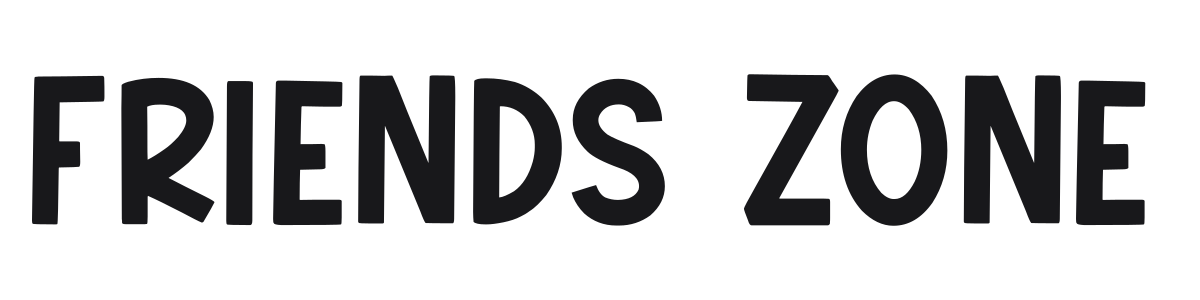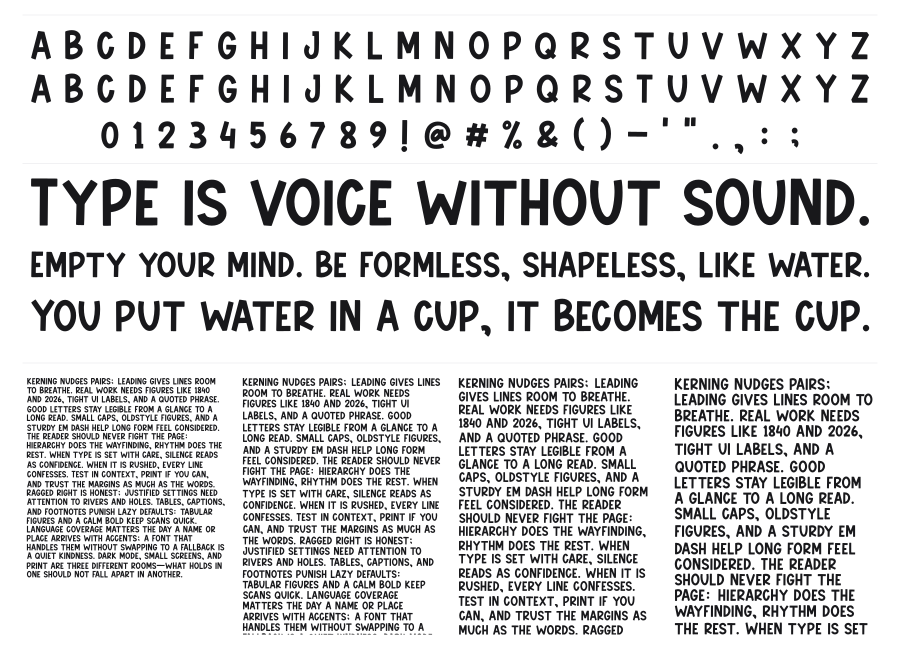
Friends Zone
Friends Zone is a bold, hand-drawn sans with a comic-book personality and organic irregularities that keep it from feeling mechanical. The slightly uneven strokes and rounded terminals give each character a lively, casual energy. It works well anywhere a design needs warmth and a sense of fun without going fully cartoonish.